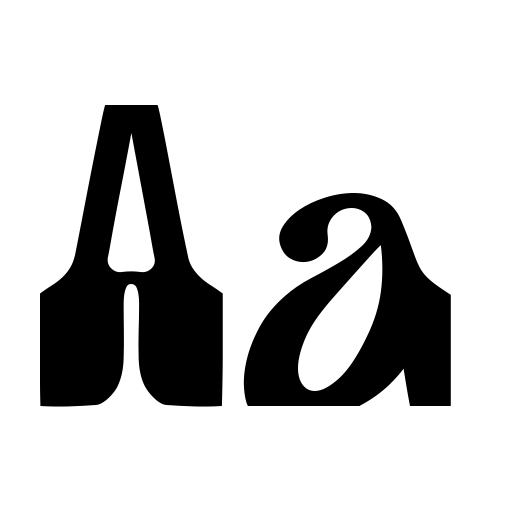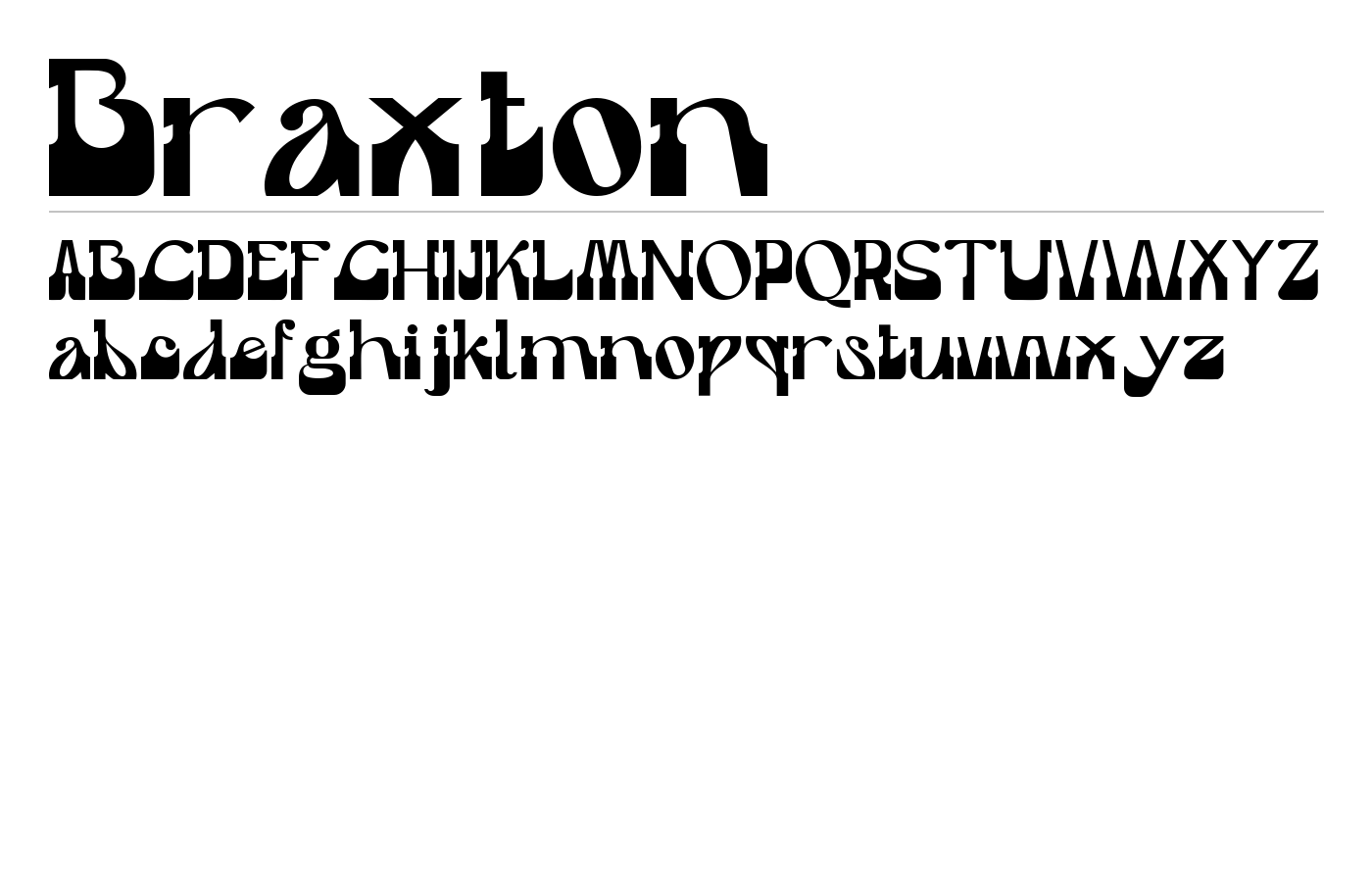
Braxton is a bold slab serif font characterized by its thick, blocky serifs and high contrast between thick and thin strokes, giving it a strong and striking appearance. Its unique letterforms combine sharp edges with curved, artistic details, making it perfect for eye-catching headlines, logos, and branding that demand a bold, creative presence. This font works well where a modern yet expressive style is needed, adding personality and impact to fashion, editorial, and poster designs.
Braxton Font